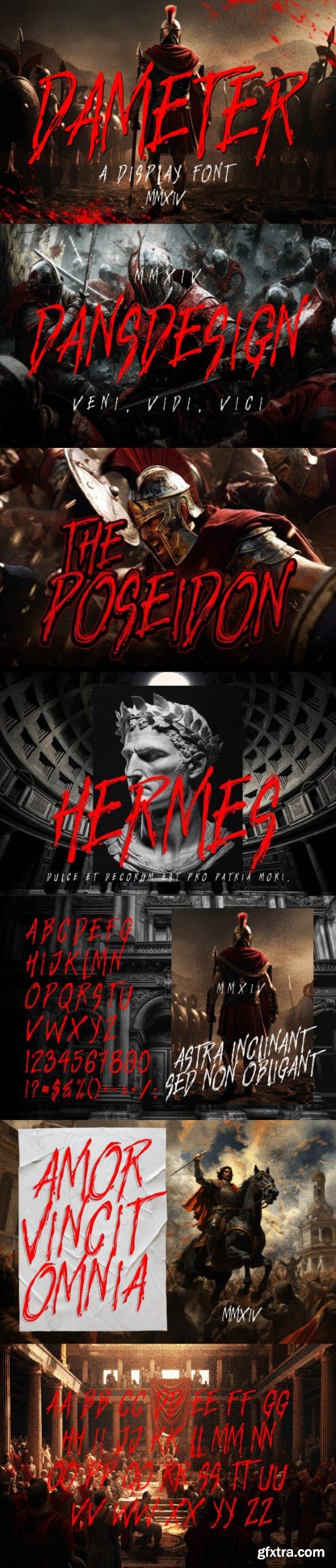
Dameter is a creepy and spine-tingling display font that embodies the spirit of horror and suspense. With sharp edges and distorted letters, it creates a feeling of fear and intrigue, making it perfect for Halloween-themed designs, movie posters, and spooky headlines. Dameter makes you tremble.